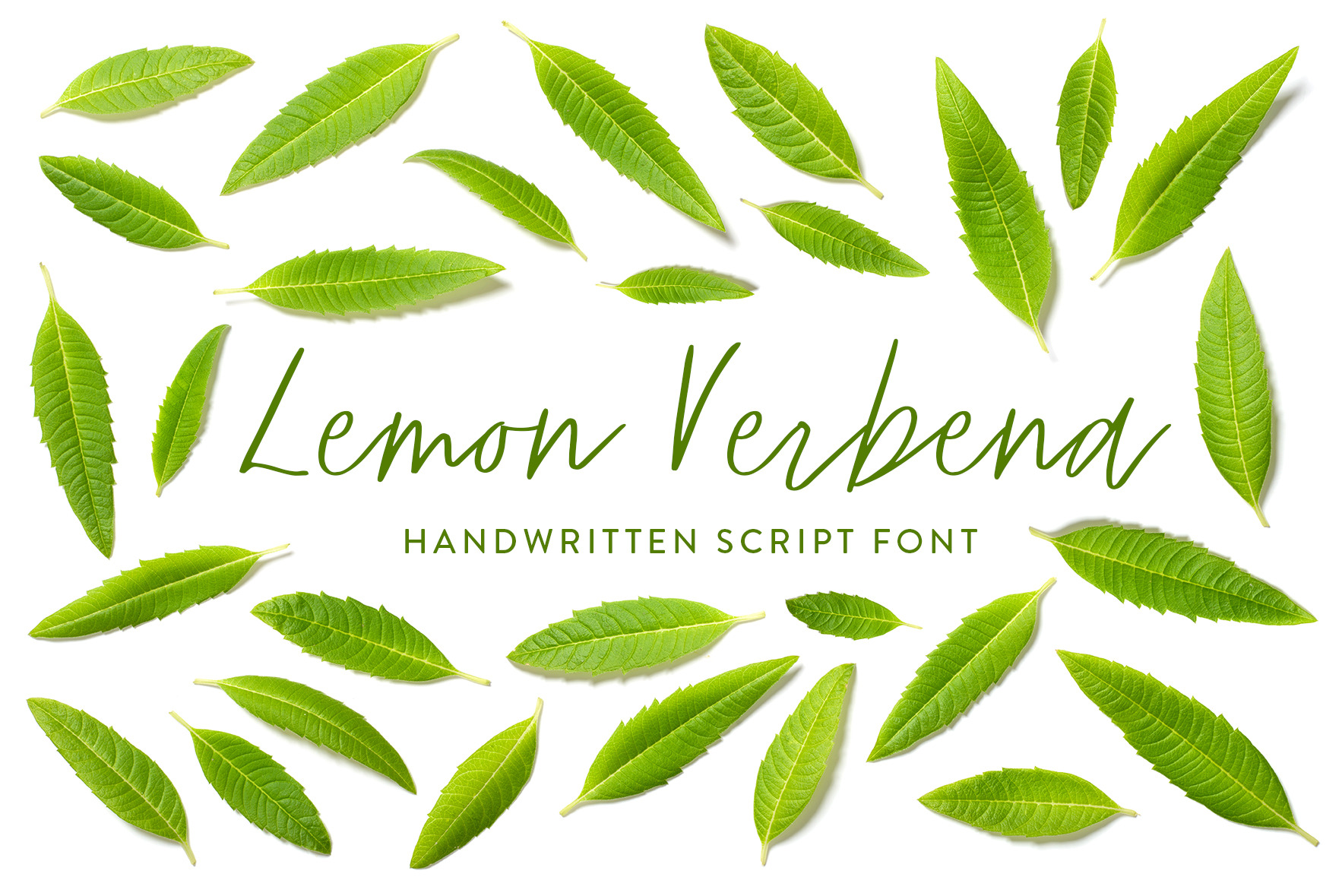
Lemon Verbena Handwritten Font
Introducing Lemon Verbena Handwritten Script font. A wonderfully whimsical font. Perfectly suited for a diversity of design projects, including logos, branding, wedding designs and social media posts.